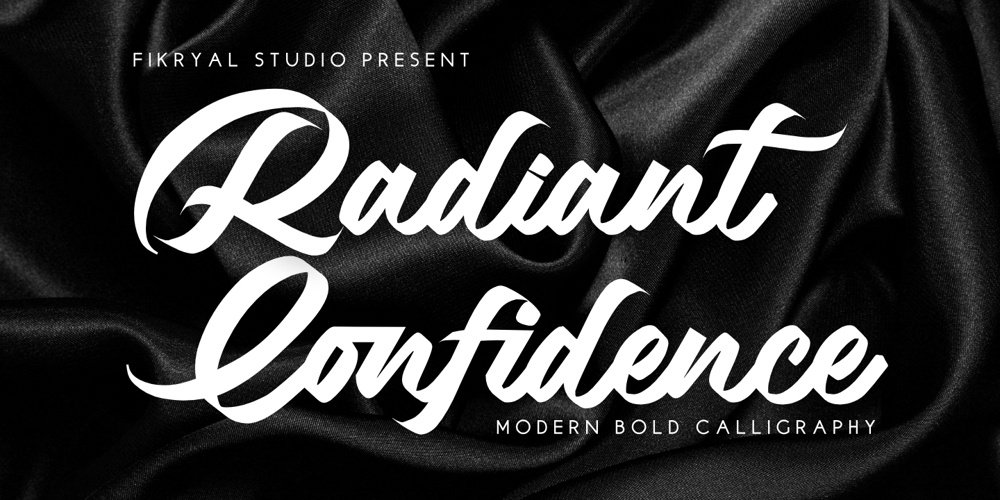
Radiant Confidence
Radiant Confidence font
Radiant Confidence Font Family was designed by Muhammad Fikry and published by Fikryal. Radiant Confidence contains 1 styles and family package options. Radiant Confidence is a modern bold calligraphy font, designed to convey an impression of elegance and luxury. This font comes with a variety of ligatures and alternatives that enrich your design creativity, making it perfect for branding projects, invitations, posters, and more. With a subtle and dynamic character, Radiant Confidence offers a professional and artistic touch that will enhance the visual appeal of each of your works.Grab attention with the elegance and luxury offered by Radiant Confidence. This font is not only eye-catching but also provides great flexibility with a variety of ligature options and alternatives. Bring uniqueness and personality to each of your designs, from exclusive logos to stunning wedding invitations.Don’t miss the opportunity to take your design to the next level. Get Radiant Confidence now and let this font be the heart of your every creative project. With Radiant Confidence, perfection in typography is at your fingertips.If you have any questions please don’t hesitate to contact me.follow my Instagram: fkryallThank you 🙂